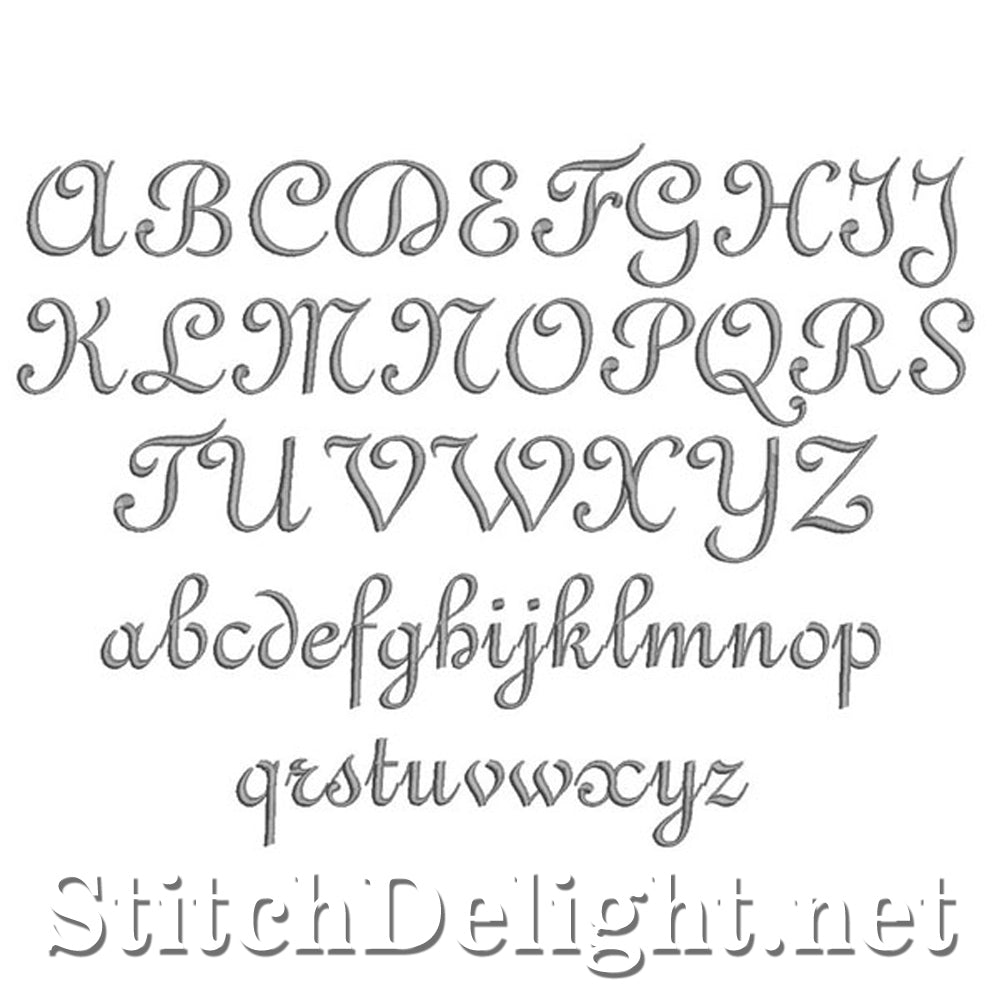
SDS1172 Elegant Ribbon Font
Beautiful ribbon like letters with a capital letter height of 4cm / 2" - This font goes very well with the new Elegant Silver Leaf Rose Font